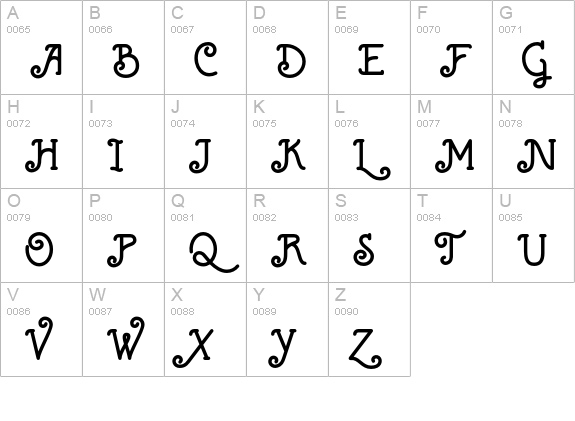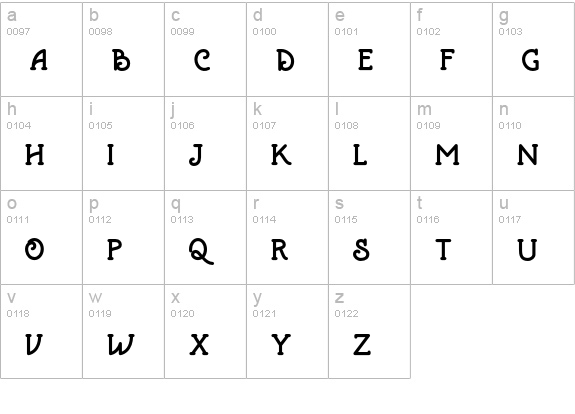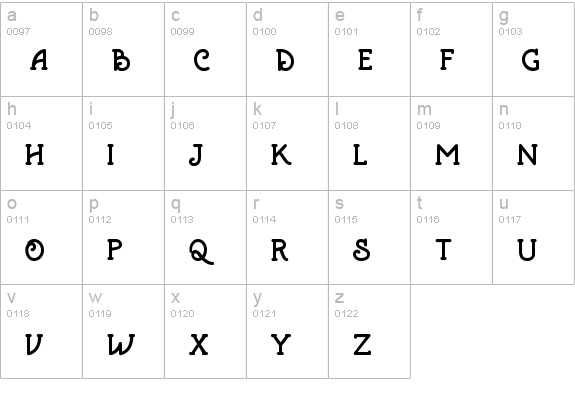
Marema Typeface Font Details
Marema Typeface is a stunning and elegant font that exudes sophistication and charm. With its unique blend of classic and modern design elements, Marema Typeface is sure to make your projects stand out from the crowd. This versatile font is perfect for a wide range of applications, from branding and advertising to invitations and social media graphics. The best part? Marema Typeface is completely free to download at FontsMarket.com. Whether you're a seasoned designer looking for a fresh new font to add to your collection, or a beginner searching for the perfect typeface for your next project, Marema Typeface has you covered. Don't miss out on this incredible opportunity to enhance your designs with this beautiful and timeless font. Download Marema Typeface today and let your creativity soar.